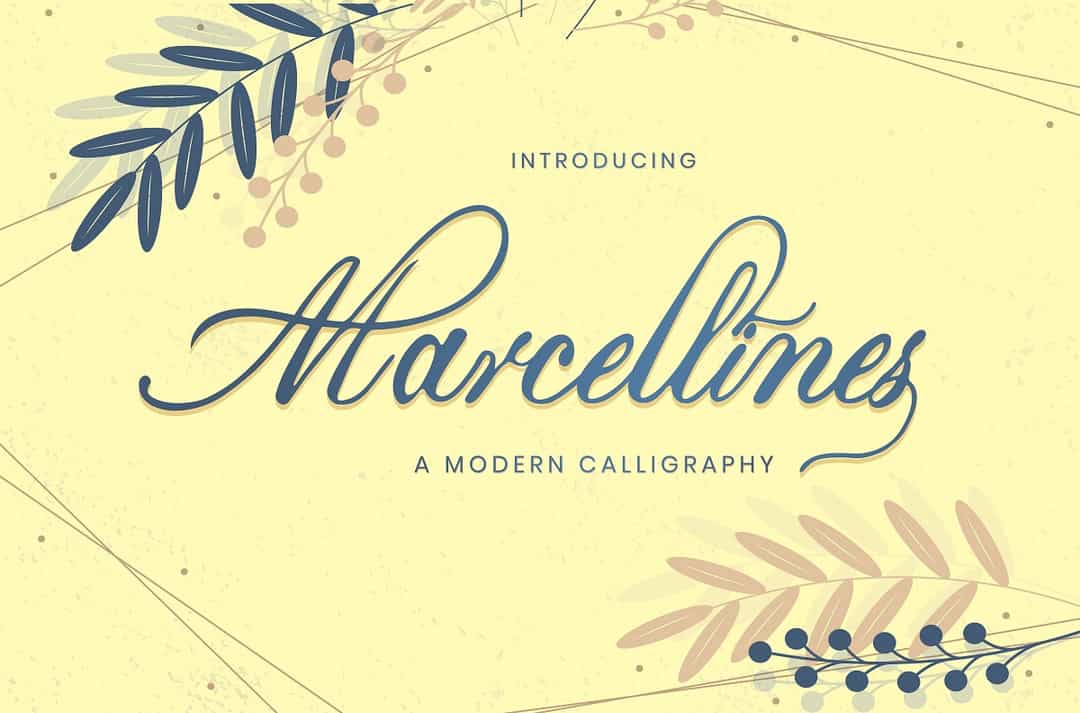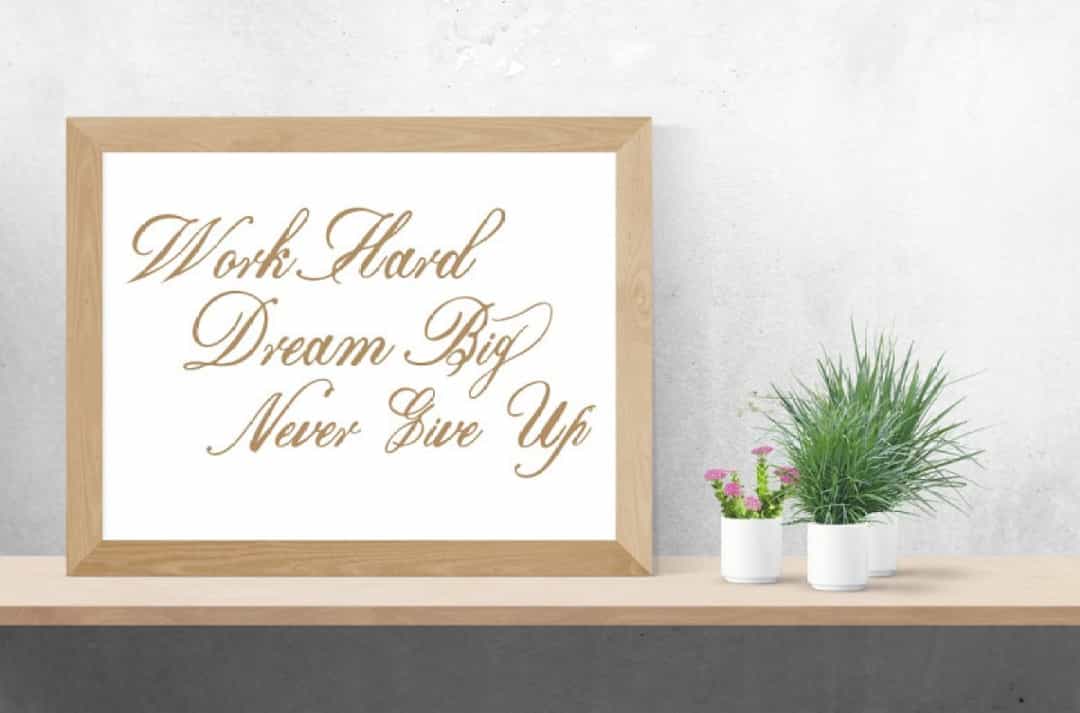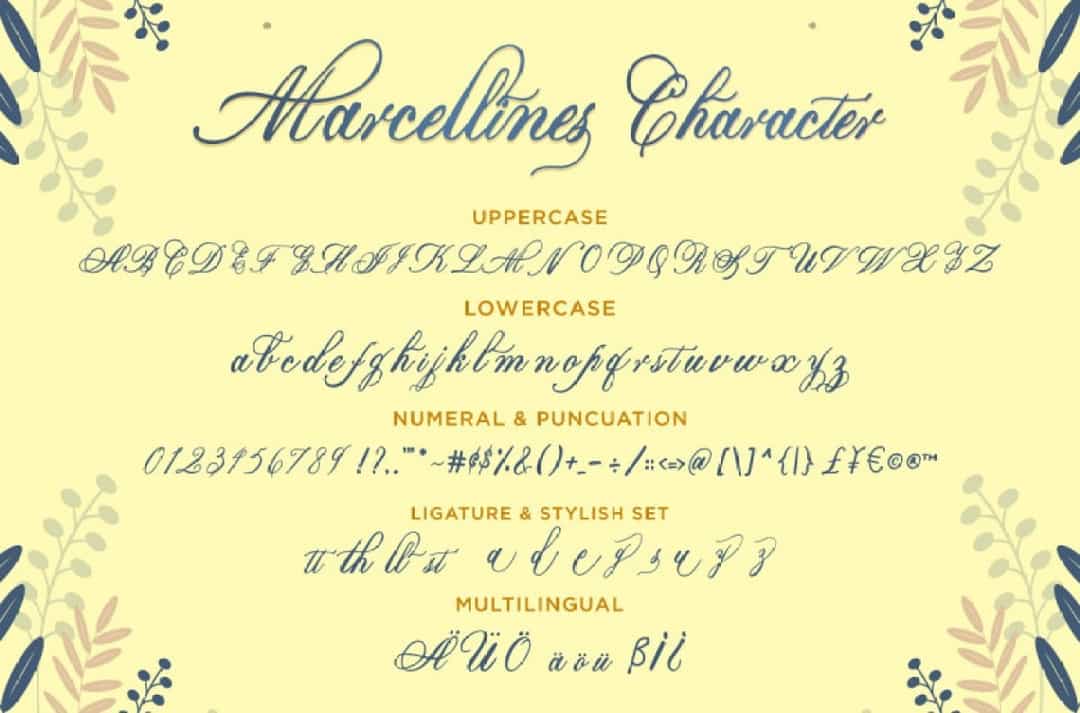
Marcellines font is a contemporary script calligraphy font created through direct handwriting with a brush pen to produce fonts of character and art. These fonts are ideal for headlines, logotypes, apparel logotypes, invitations, branding packages and advertising needs; and come complete with uppercase letters, punctuation marks, symbols numerals as well as stylish sets – and support multilingual languages!